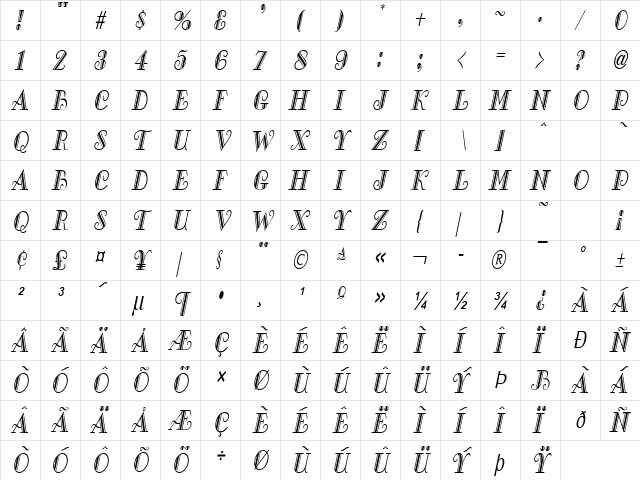
GalleryCondensed Italic Font Preview
Design Context for GalleryCondensed Typeface
GalleryCondensed takes a measured approach to typography — its balanced proportions and neutral character make it a reliable workhorse for both digital and print work. The dynamic lean of this cut emphasises speed and emphasis in any layout. The condensed width makes it efficient for tight spaces without sacrificing legibility.